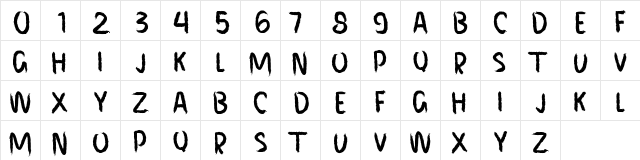
HORROR MEMORIES Regular
Design Context for HORROR MEMORIES Typeface
HORROR MEMORIES leans into the macabre with letterforms designed to disturb and intrigue in equal measure.
Perfect for anything that needs to unsettle — game titles, horror branding, and macabre invitations.
Font Pairing: Pair with a clean neutral sans-serif for body copy to let HORROR MEMORIES's character lead without overwhelming the composition.
Pro Tip: Use HORROR MEMORIES at larger display sizes for maximum impact. Consider generous tracking to let the disturbing character of each letterform breathe.